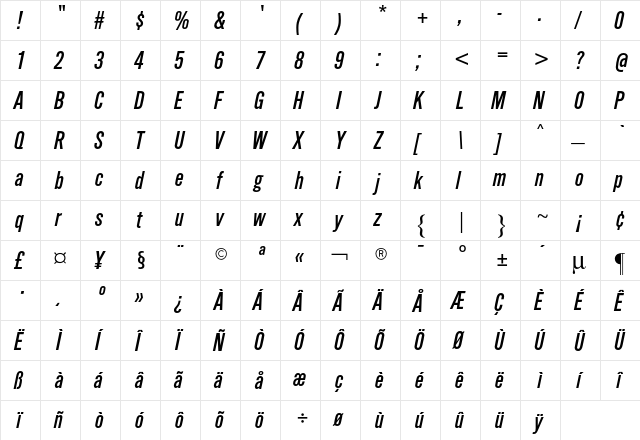
Alpin Gothic CG No2 Italic
Design Context for Alpin Gothic CG No2 Typeface
Alpin Gothic CG No2 takes a clean, functional approach — its unadorned letterforms prioritise legibility and work reliably across screen and print environments. The slanted form adds forward momentum and visual energy.
Font Pairing: Works well alongside a characterful serif or display font that can carry the expressive load while Alpin Gothic CG No2 handles the functional copy.
Pro Tip: Use Alpin Gothic CG No2 for UI labels, navigation, and short-form body copy where clean legibility is the priority.